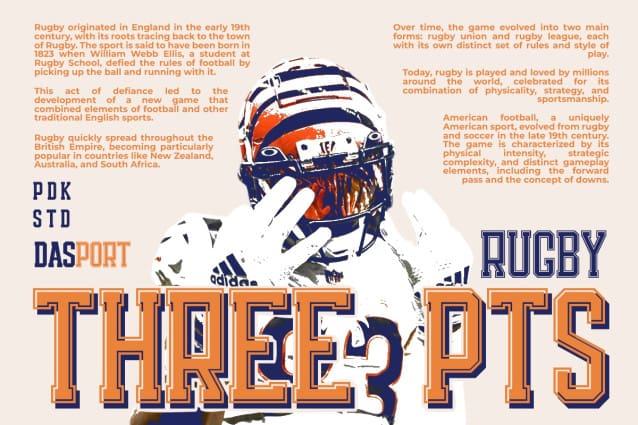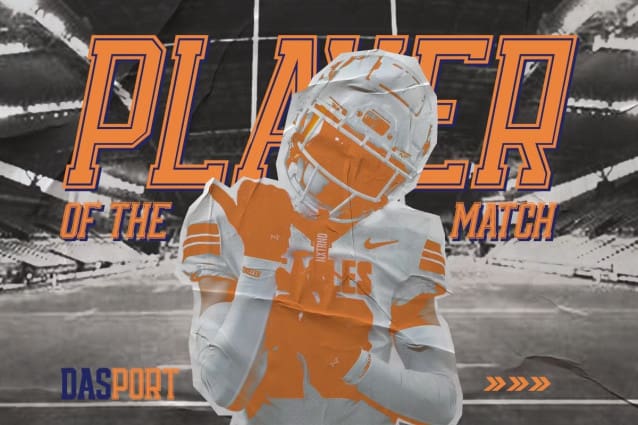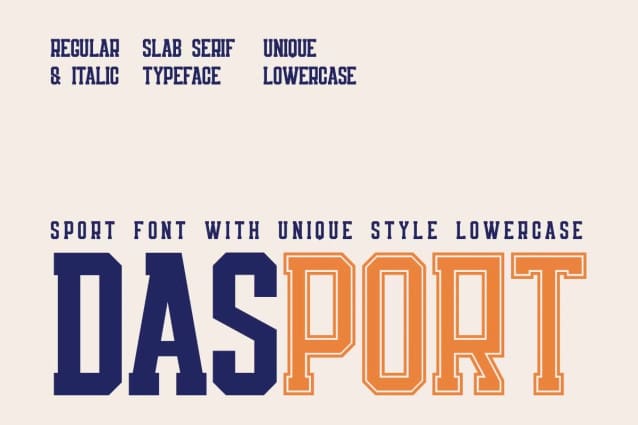
Dasport Font
Dasport Font – a modern, bold, and authentic display font with unique style lowercase characters. Dasport is perfect for any branding project, including logos, template designs, product packaging, and much more. It stands out in a wide range of contexts, making it a versatile choice for all your creative needs.
Whether you’re designing for esport, fashion, or any other industry, Dasport Font adds a dynamic and eye-catching touch.